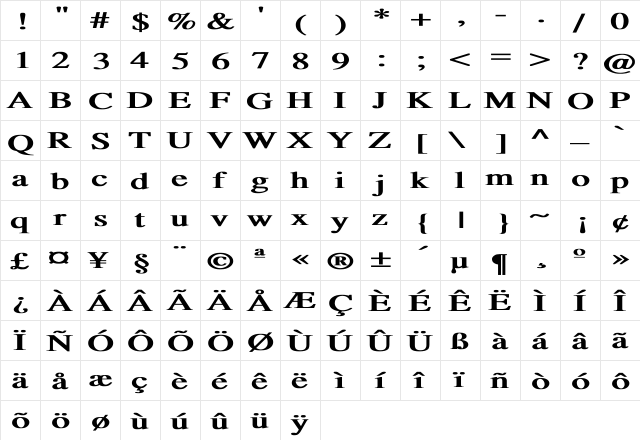
RSTempus Ex bold Bold Font Preview
RSTempus Ex bold Bold
RSTempus Ex bold Bold Font Details
Design Context for RSTempus Ex bold Typeface
RSTempus Ex bold is a composed and adaptable typeface that performs quietly and consistently across a wide range of design contexts. The heavy weight commands attention and anchors typographic hierarchies.